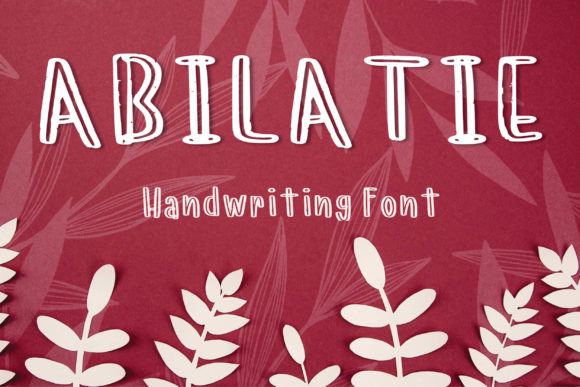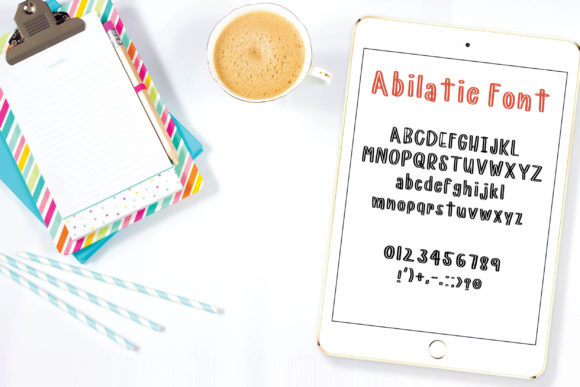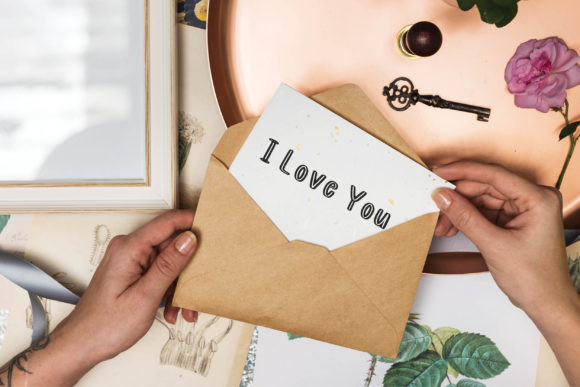
Abilatie Font
Abilatie is a quirky handwritten font, incredibly versatile due to its playful style. Fall in love with its unique feel and use it to create spectacular designs!